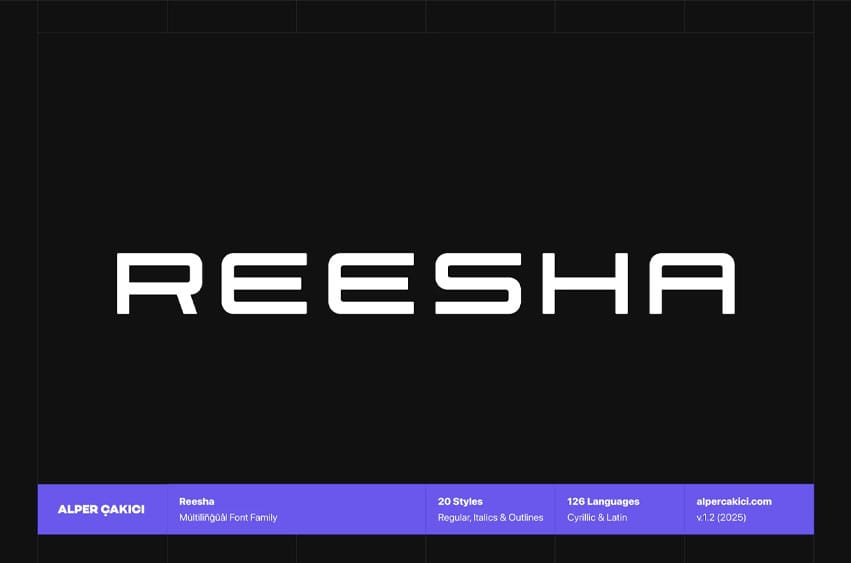
Reesha Font is a sleek and modern geometric typeface built for the future. With its clean lines, innovative shapes, and confident presence, it’s perfect for sci-fi branding, digital interfaces, packaging, and tech-inspired design.
** Why Choose Reesha?** Futuristic & Geometric: A perfect balance of innovation and readability. Extended Latin & Cyrillic: Communicate your vision globally. Optimized for Digital: Crafted for flawless performance in apps, games, web, and advertising. Creative Flexibility: Ideal for logos, posters, UI/UX, tech branding, and beyond. Professional Craftsmanship: Every detail fine-tuned for balance, legibility, and visual power. Free Updates & Support: Get lifetime updates and responsive help whenever you need it.
Key Features & Styles 24 Styles Total: Regular • Italic • Medium • Medium Italic • SemiBold • SemiBold Italic • Bold • Bold Italic • ExtraBold • ExtraBold Italic • Black • Black Italic — plus matching Outline versions for each weight. Precision-Engineered Italics: Each slanted style is meticulously generated for consistent geometric accuracy. Style Linking Ready: Standard keyboard shortcuts (Bold, Italic, Bold Italic) work smoothly in most major design applications.